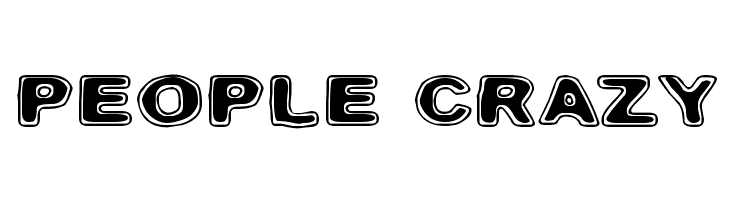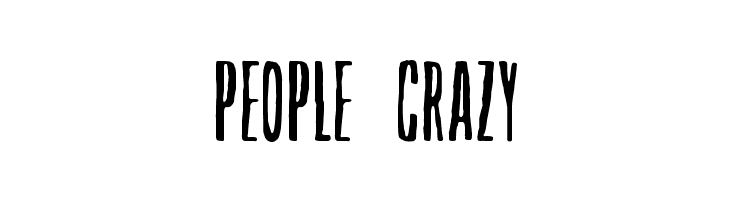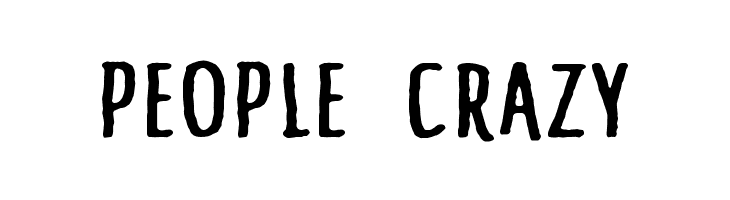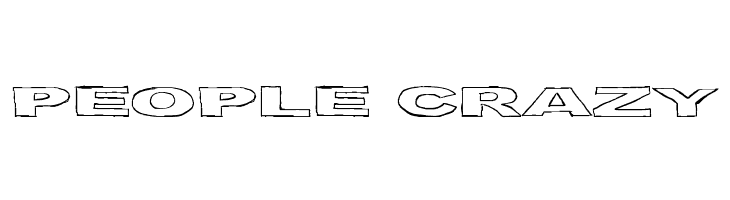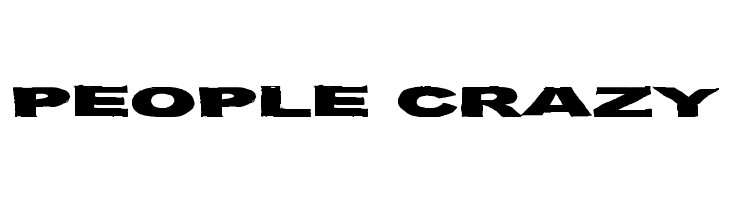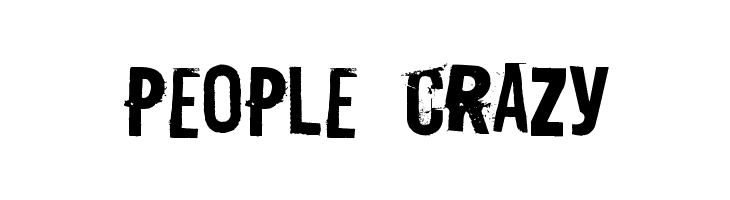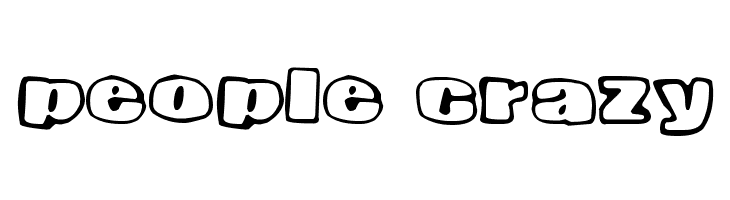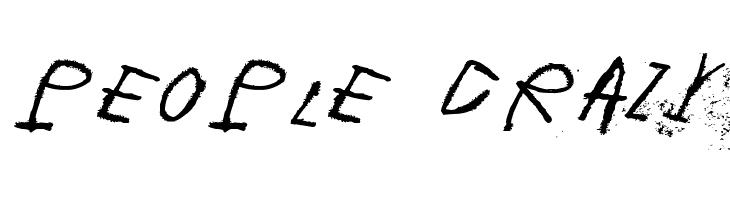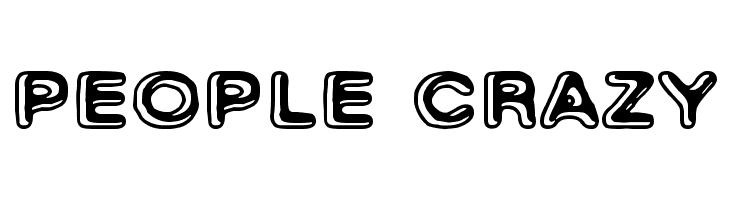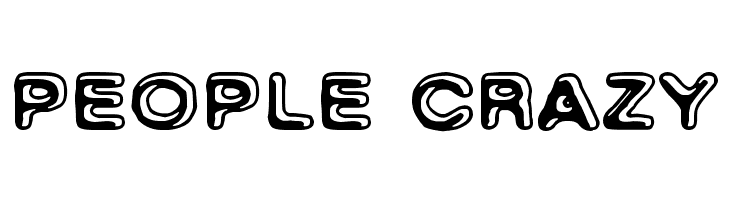
A bold, playful font with an irregular, hand-drawn style.
A bold, playful font with a distinct outline for a three-dimensional effect.
A rugged, distressed font with an organic, hand-crafted appearance.
A bold, textured font with a hand-drawn, rustic appearance.
A bold, outlined font with a playful, cartoonish style.
A bold, textured font with a distressed, vintage look.
A bold, textured font with a hand-drawn, dynamic aesthetic.
A bold, rounded font with a playful and robust appearance.
A bold, playful font with a 3D effect and thick outlines, perfect for dynamic displays.
A bold, playful font with a unique outline style and cartoonish appearance.